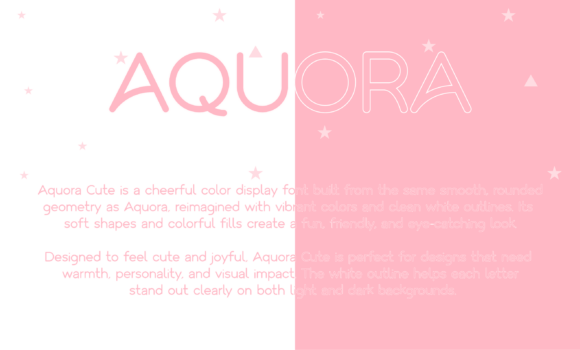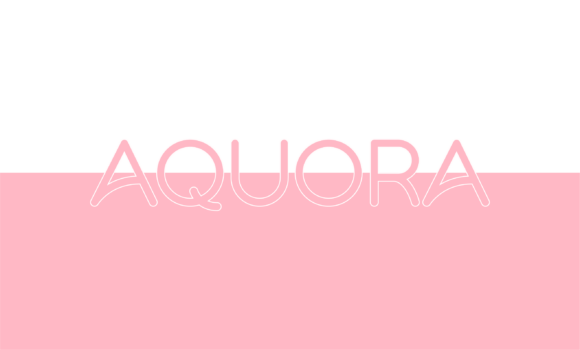
Aquora Cute Font: Elevate Your Designs with Playful Sophistication
Are you tired of using the same old fonts in your designs? Look no further than Aquora Cute Font, a chic and unique typeface that embodies the spirit of playful sophistication. This vibrant font is sure to bring a pop of fun to your creative projects, setting you apart from the crowd.
Introducing Aquora: A Font Like No Other
Aquora is a member of the aestatic font family, boasting bespoke elegance that will captivate those seeking bold, new typography. Its distinctive pink hues add a touch of whimsy to any design, making it perfect for creatives looking to infuse color into every detail. With its adorably cute style, Aquora is sure to leave an unforgettable imprint on every project it graces.
Defining Characteristics of Aquora Cute Font
Aquora Cute typeface is defined by its rounded terminals and open letterforms, offering a breezy, “bubbly” character while maintaining the structural integrity of a professional sans serif. This unique combination makes it an exceptional choice for boutique fashion branding, beauty products, and any design that requires a touch of playfulness.
Aquora Cute Font is not just a font, it’s an embodiment of joyful creative exploration. For typophiles with an insatiable taste for color-filled adventures, Aquora lays out a typographic joyride like no other. Whether you’re a designer, crafters, or simply a creative enthusiast, this font is sure to inspire you to try new things and push the boundaries of your designs.
Why Choose Aquora Cute Font?
- Unique and Chic: Aquora Cute Font offers a distinctive and stylish aesthetic that will set your designs apart from the crowd.
- Vibrant and Playful: With its pink hues and rounded terminals, Aquora adds a touch of playfulness to any design.
- Professional and Structural: Despite its playful nature, Aquora maintains the structural integrity of a professional sans serif font.
- Versatile: Perfect for boutique fashion branding, beauty products, and a wide range of creative projects.
Tips for Using Aquora Cute Font
To get the most out of Aquora Cute Font, try pairing it with complementary fonts to create a unique visual hierarchy. Use it as a statement font to draw attention to key elements in your design, or as a supporting font to add texture and interest.
Aquora Cute Font is a game-changer for designers and crafters looking to elevate their creative projects with playful sophistication. Its unique blend of style, structure, and whimsy makes it the perfect choice for those seeking to push the boundaries of typography. Try Aquora Cute Font today and discover a world of vibrant, colorful possibilities.
Get Ready to Fall in Love with Aquora
With its irresistible charm and captivating aesthetic, Aquora Cute Font is sure to become your new favorite go-to font. So why wait? Dive into the world of Aquora and experience the joy of creative exploration for yourself.